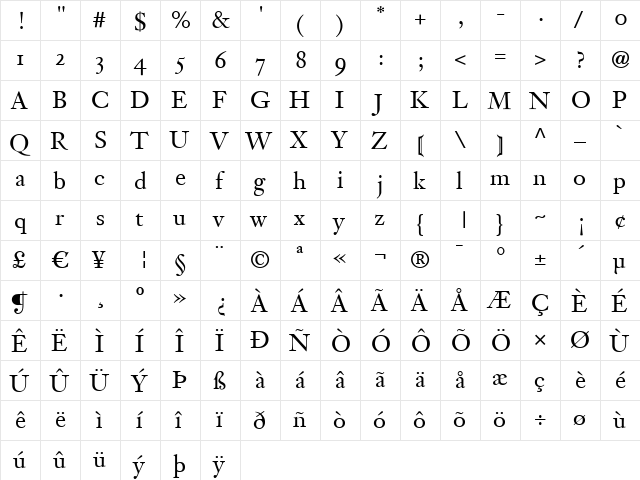
Tyrnavia Regular
Design Context for Tyrnavia Typeface
Tyrnavia is a composed and adaptable typeface that performs quietly and consistently across a wide range of design contexts.